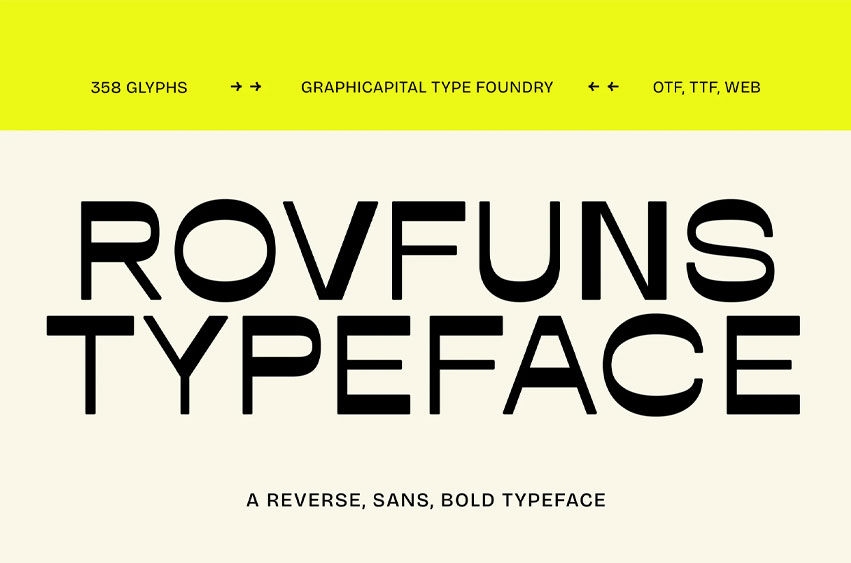
Rovfuns Font is a reverse-contrast sans-serif font with a futuristic and experimental edge. Its distinctive style makes it ideal for logos, headlines, posters, tech branding, and premium minimalist design projects.
Ideal for branding, posters, headlines, packaging, album art, game visuals, and promotional designs. It adds personality to any creative project and helps your message stand out effortlessly.